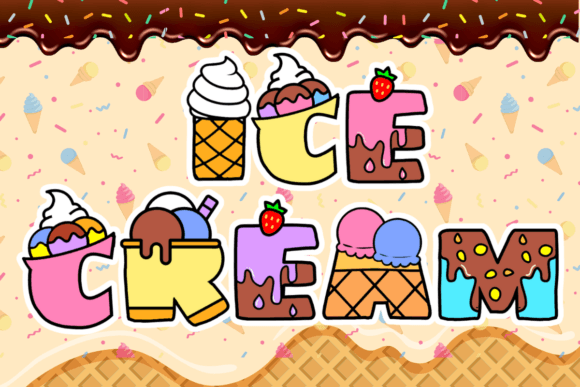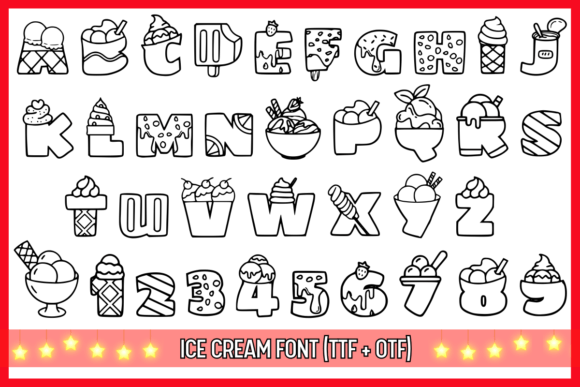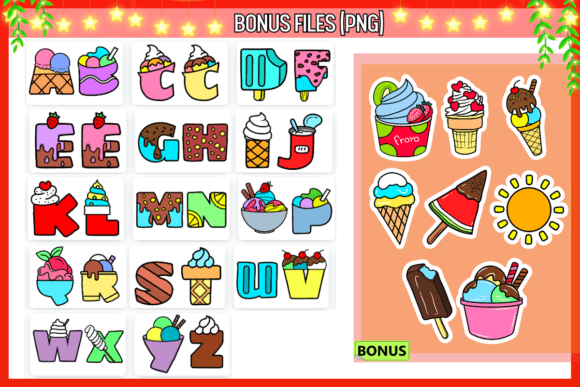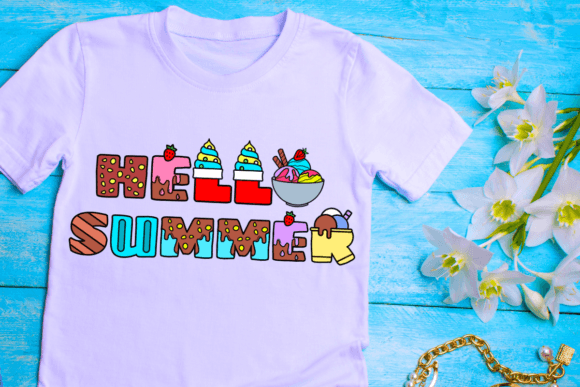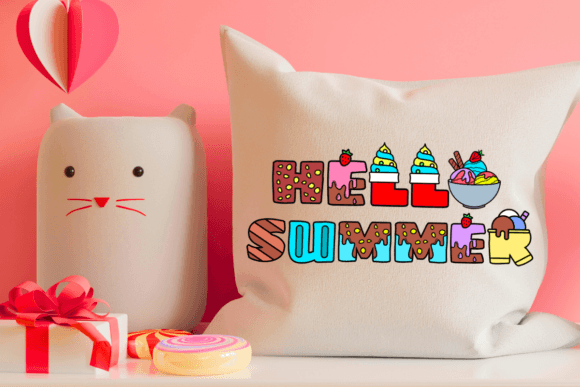
Ice Cream Font
“Ice Cream” is a fun and playful decorative font where each letter looks like it’s made out of ice cream. The letters are designed with creamy textures, colorful sprinkles, and drips, making them perfect for summer-themed projects and playful designs.